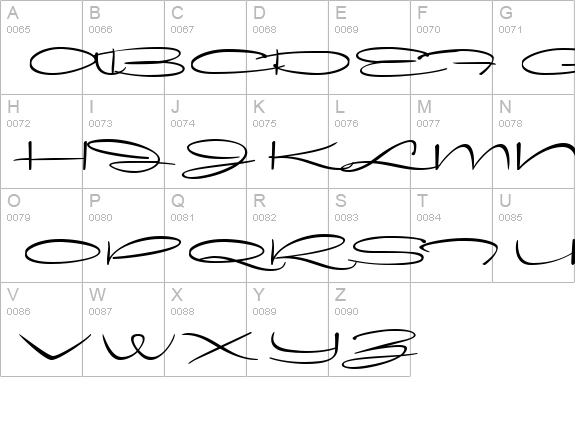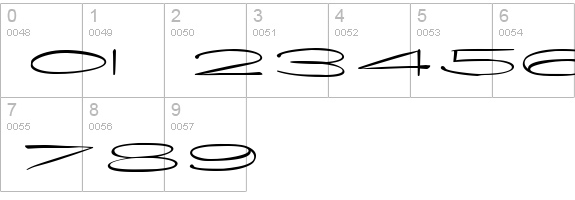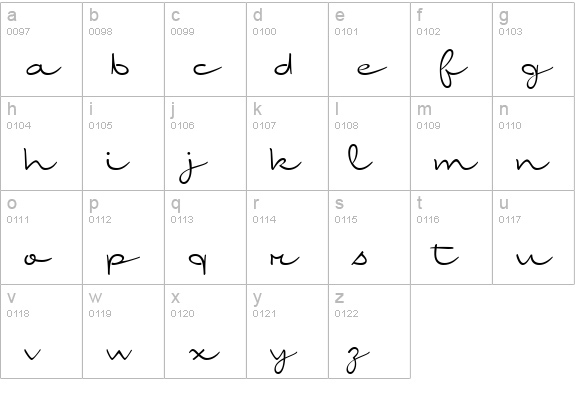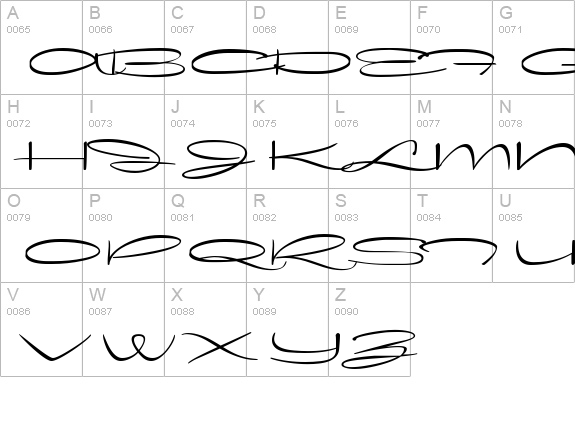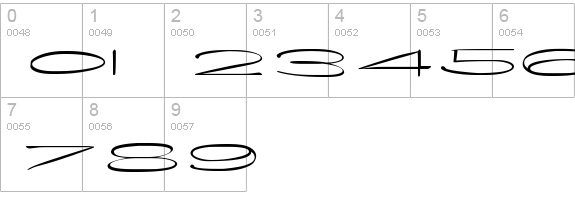
International Palms is a stunning display font that exudes an aura of sophistication and elegance. With its carefully crafted letterforms and graceful curves, this font is sure to captivate and inspire your audience. Its unique design combines elements of both modern and vintage typography, making it a versatile choice for a wide range of projects. What sets International Palms apart is not just its exquisite aesthetics, but also the fact that it is freely available to download at FontsMarket.com. This means that you can effortlessly add a touch of class to your designs without breaking the bank. Whether you're working on a branding project, a website design, or a poster, International Palms will elevate your work to new heights. The versatility of International Palms is further enhanced by its extensive character set, which includes uppercase and lowercase letters, numerals, punctuation marks, and multilingual support. This ensures that you can easily create visually appealing and engaging designs across different languages and contexts. The clean and legible nature of International Palms makes it suitable for both digital and print applications. Whether you're designing for screens or paper, this font will maintain its clarity and readability, ensuring that your message is effectively communicated to your audience. So why wait? Download International Palms for free at FontsMarket.com and unleash your creativity. Let this exquisite font be the perfect companion to your design journey, and watch as your projects come to life with a touch of timeless elegance.